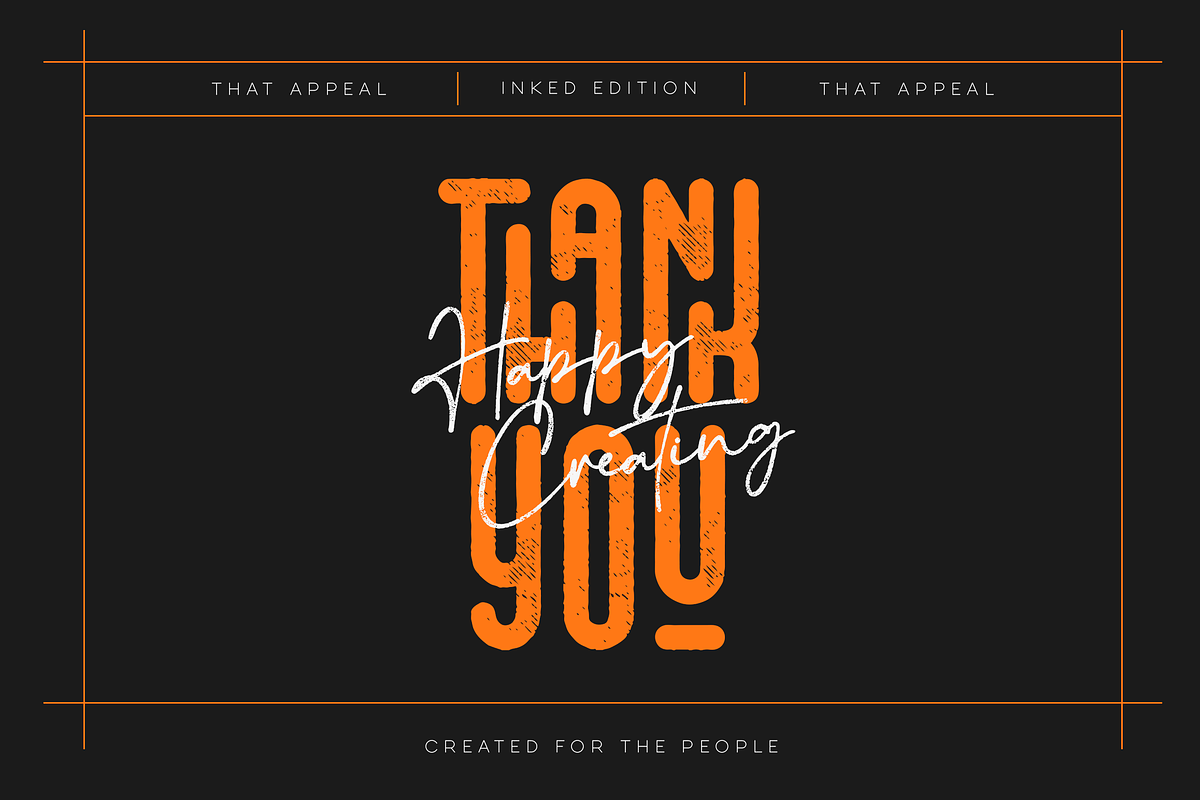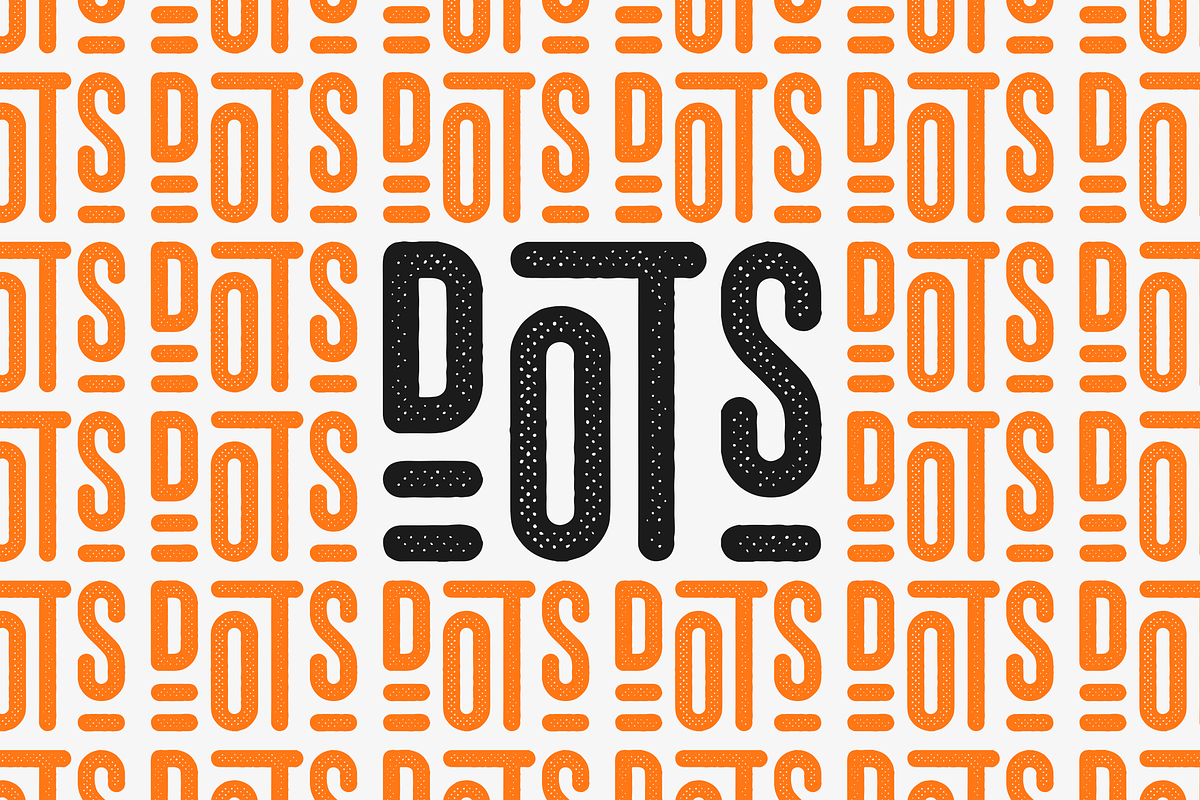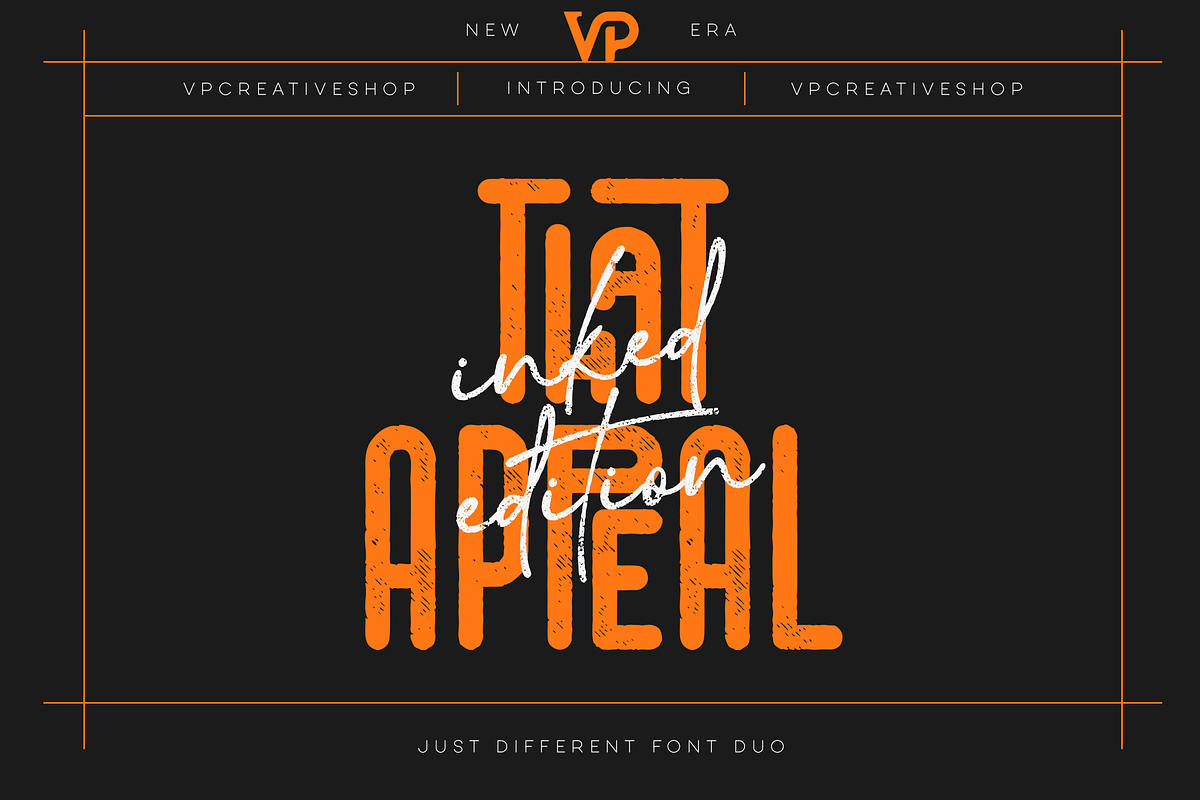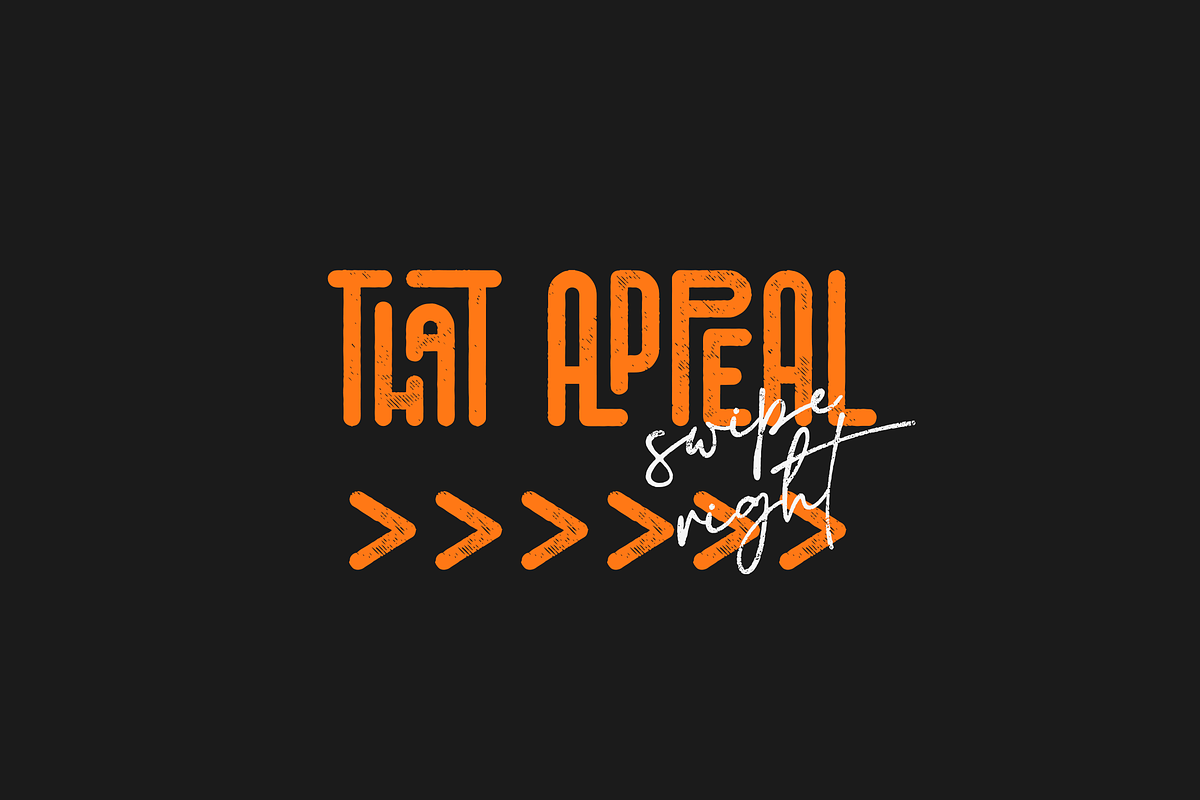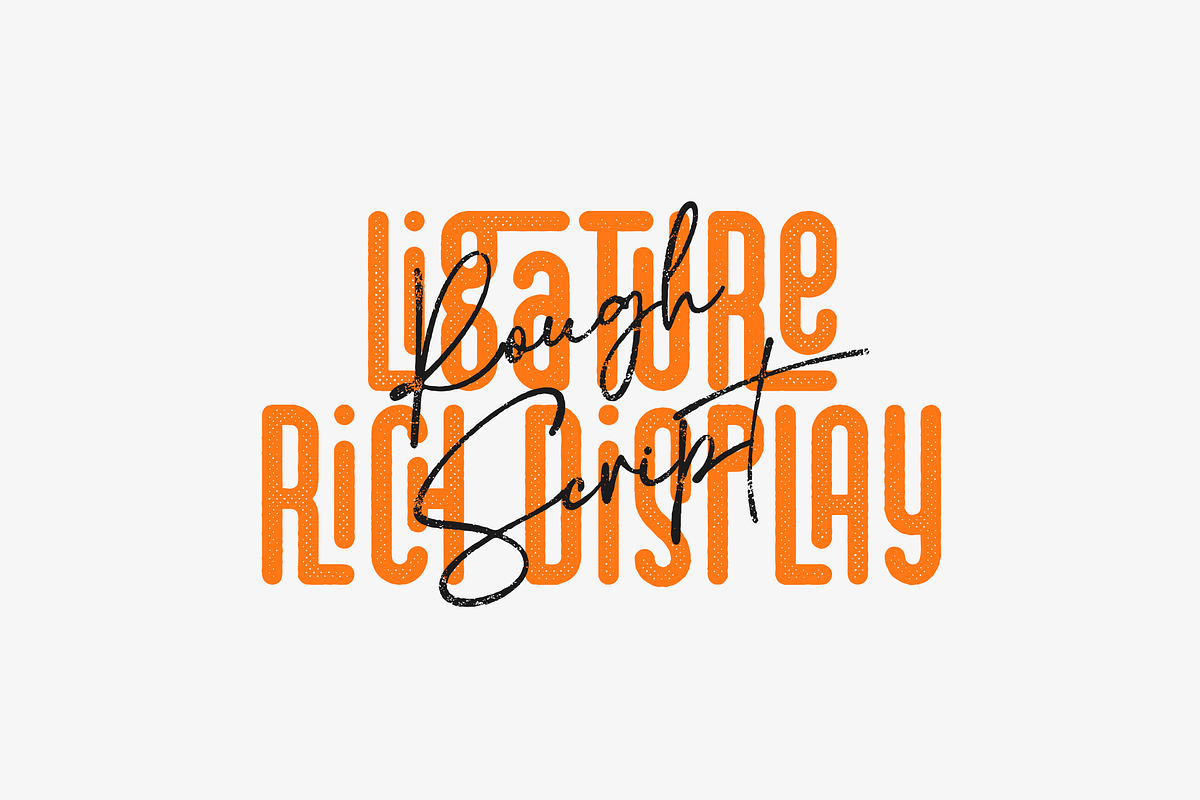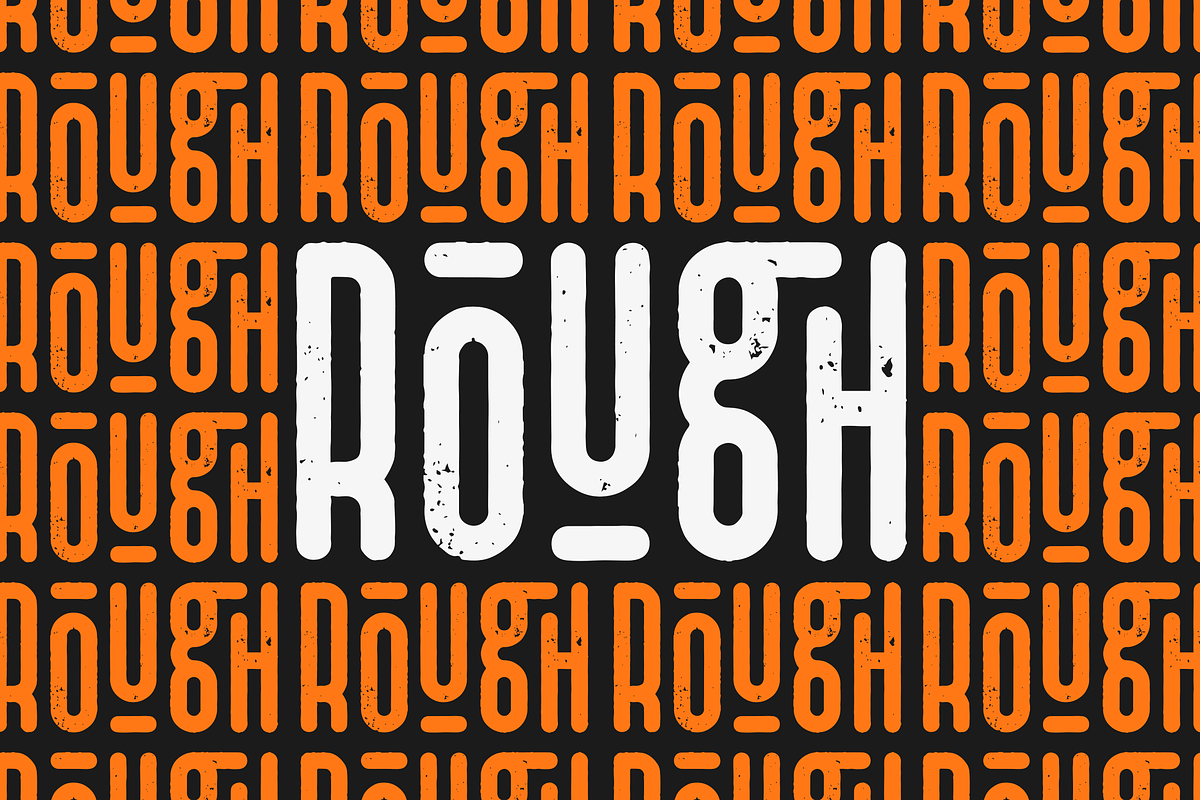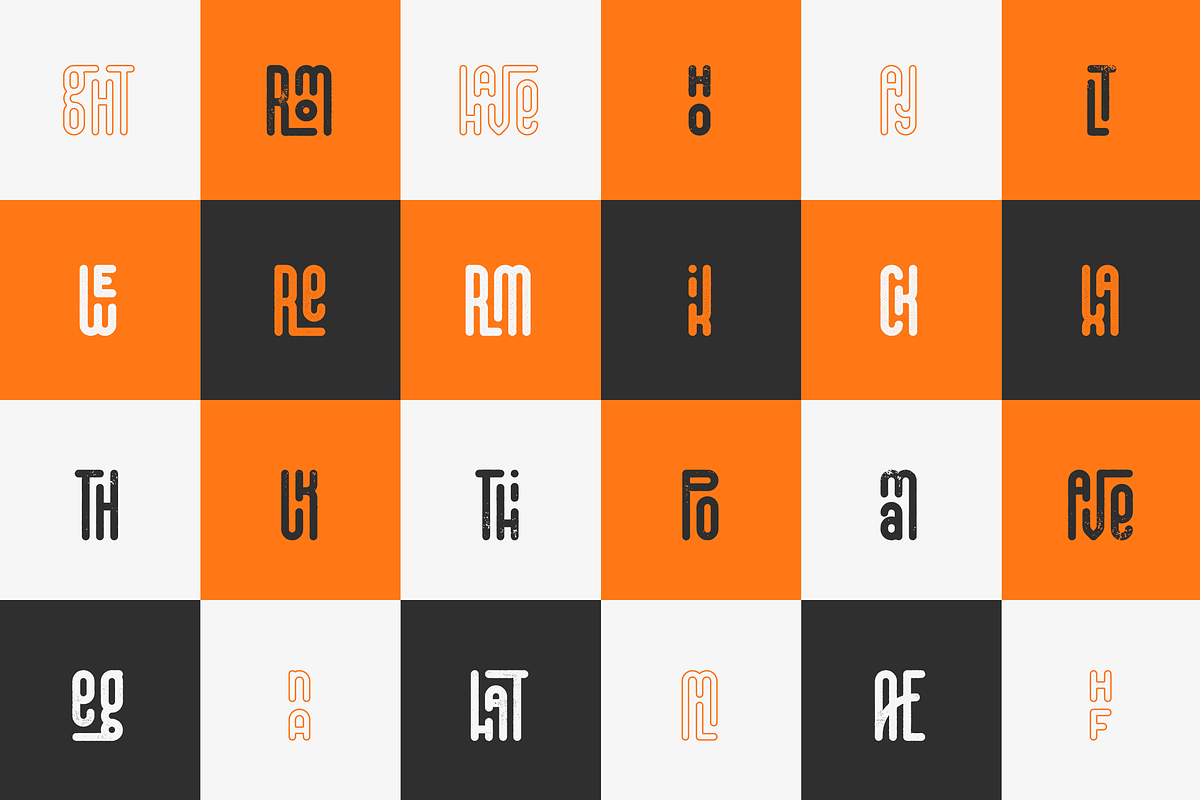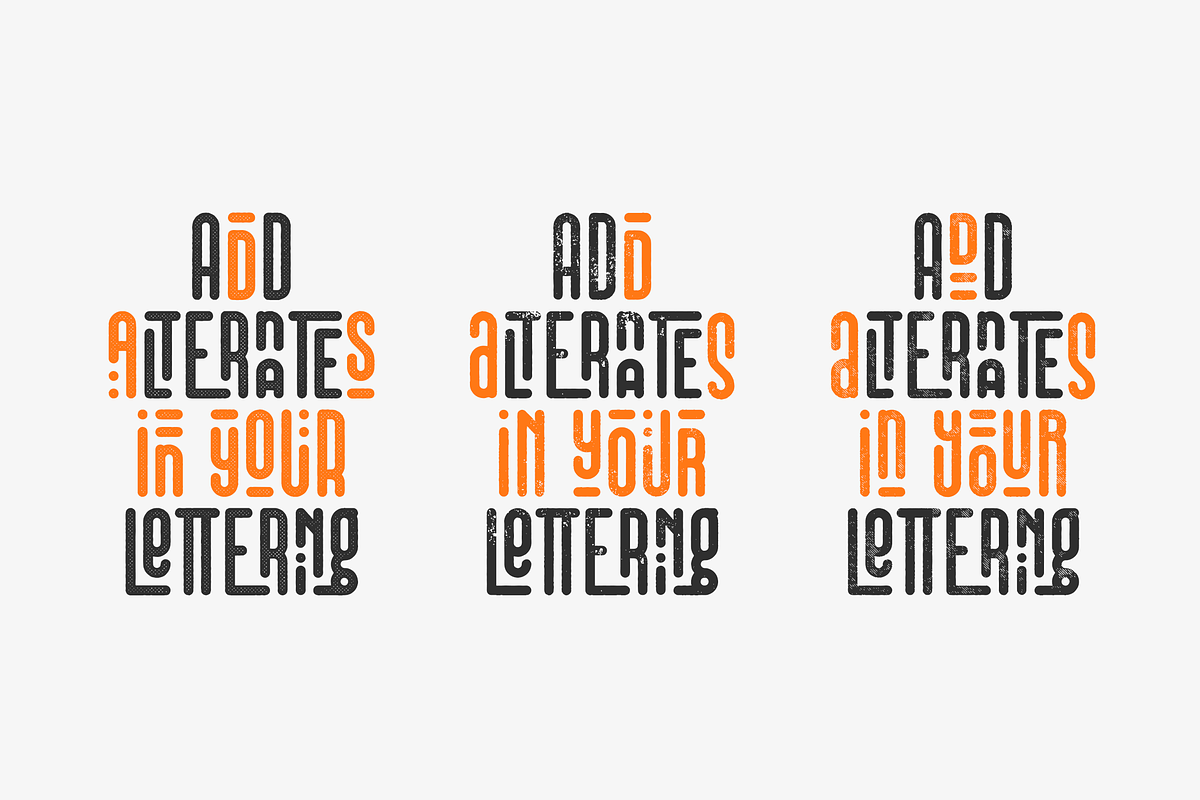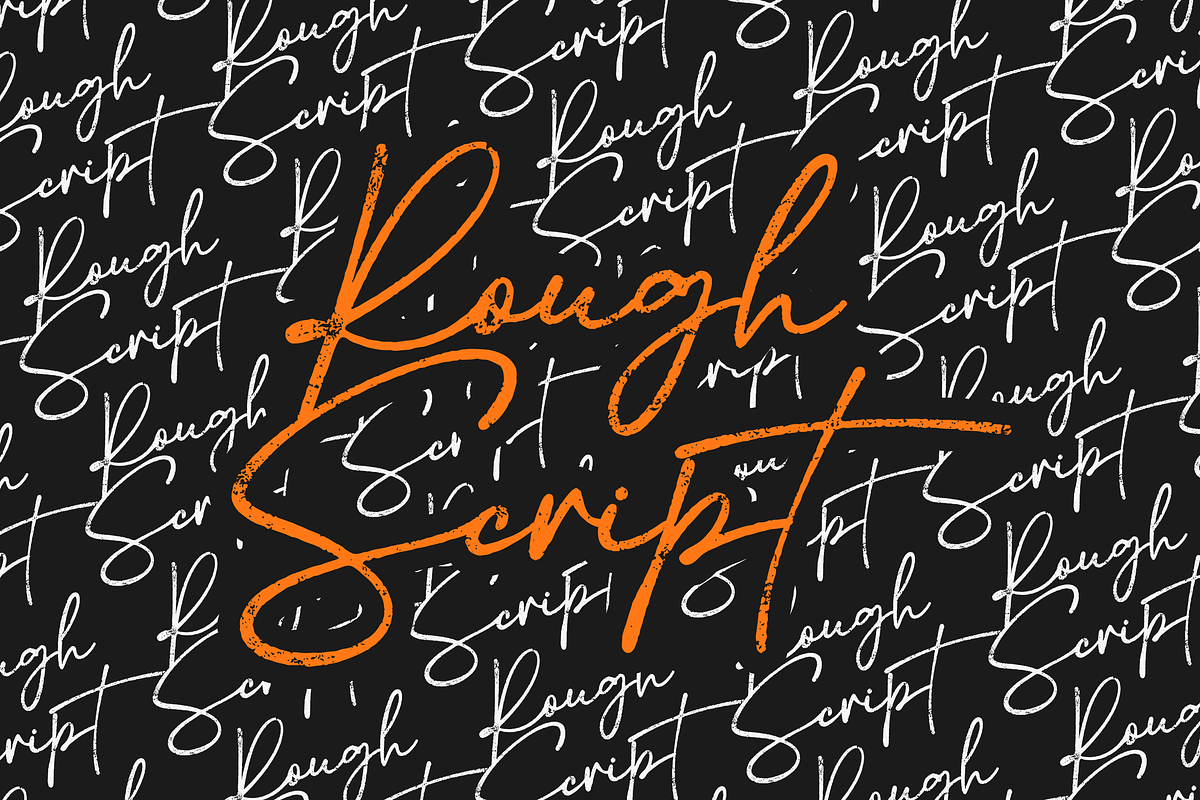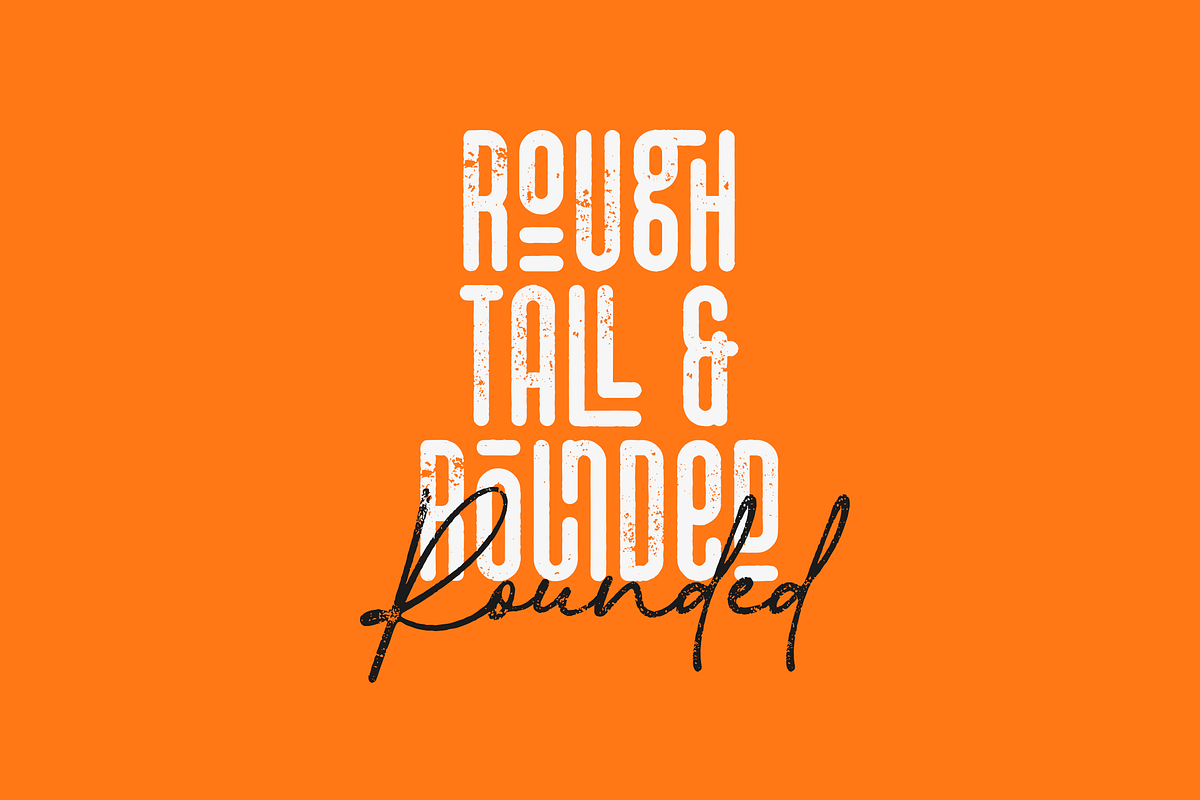
Introducing "That Appeal" - Inked Edition
Dive into the world of typography with "That Appeal", a striking font duo that brilliantly combines versatility and style. This unique pairing features two complementary typefaces, each with its own charm and functionality, making it a must-have for your creative toolkit.
First up is our Display Font. This gem is not just a font, it's a statement! With over 200 ligature glyphs and a whopping 70+ alternate glyphs, it's your go-to choice for crafting eye-catching headlines and unforgettable logos. Its long, elegant strokes and diverse range of glyphs ensure that your designs will stand out, be it in print or digital media.
Complementing this is our Casual Modern Script. It's like the cool, laid-back cousin in the font family! With its smooth, flowing lines, this script brings a touch of modern casual flair that feels both personal and professional. It's perfect for everything from branding projects to personal invitations, adding a human touch to your designs.
Together, these fonts support an impressive 87 languages, making "That Appeal" not just beautiful, but incredibly versatile and inclusive. Whether you're creating for a global audience or targeting a specific linguistic group, these fonts have got you covered.
So, whether you're designing a bold logo, a stylish headline, or a heartfelt invitation, "That Appeal" is here to elevate your work. Get ready to make your designs not just seen, but remembered!